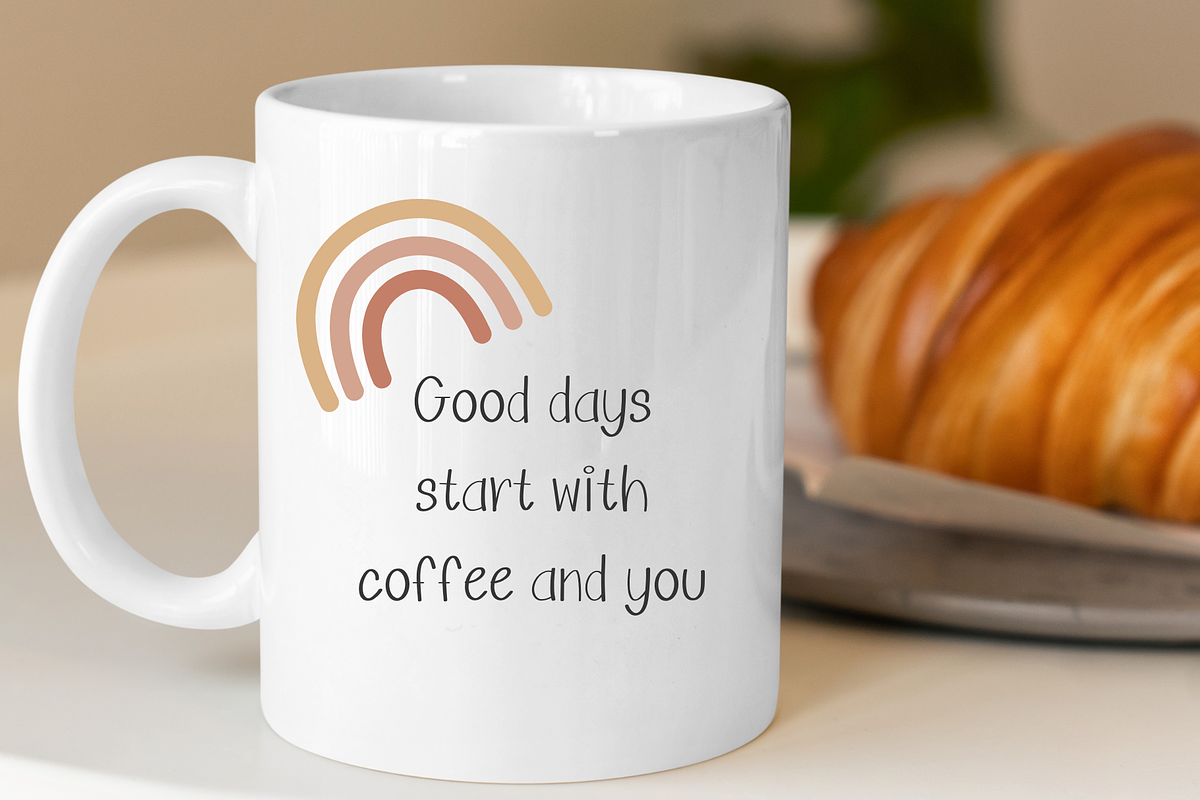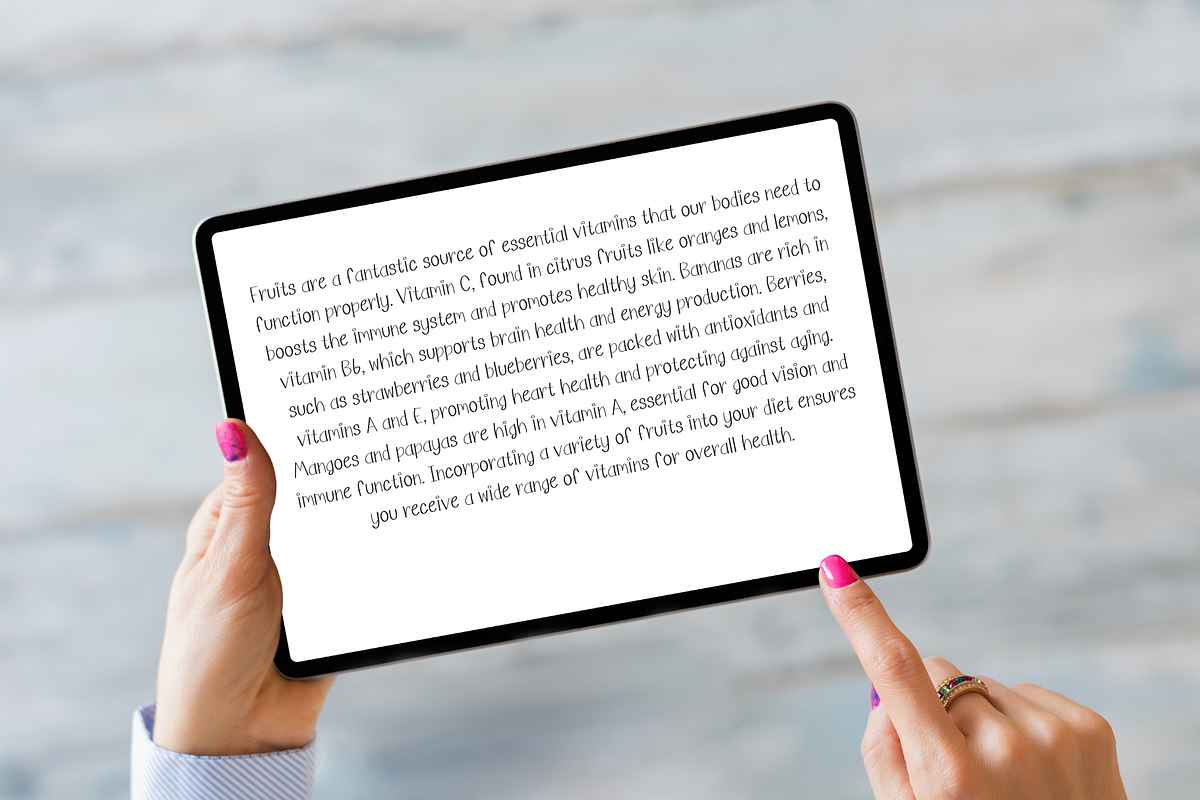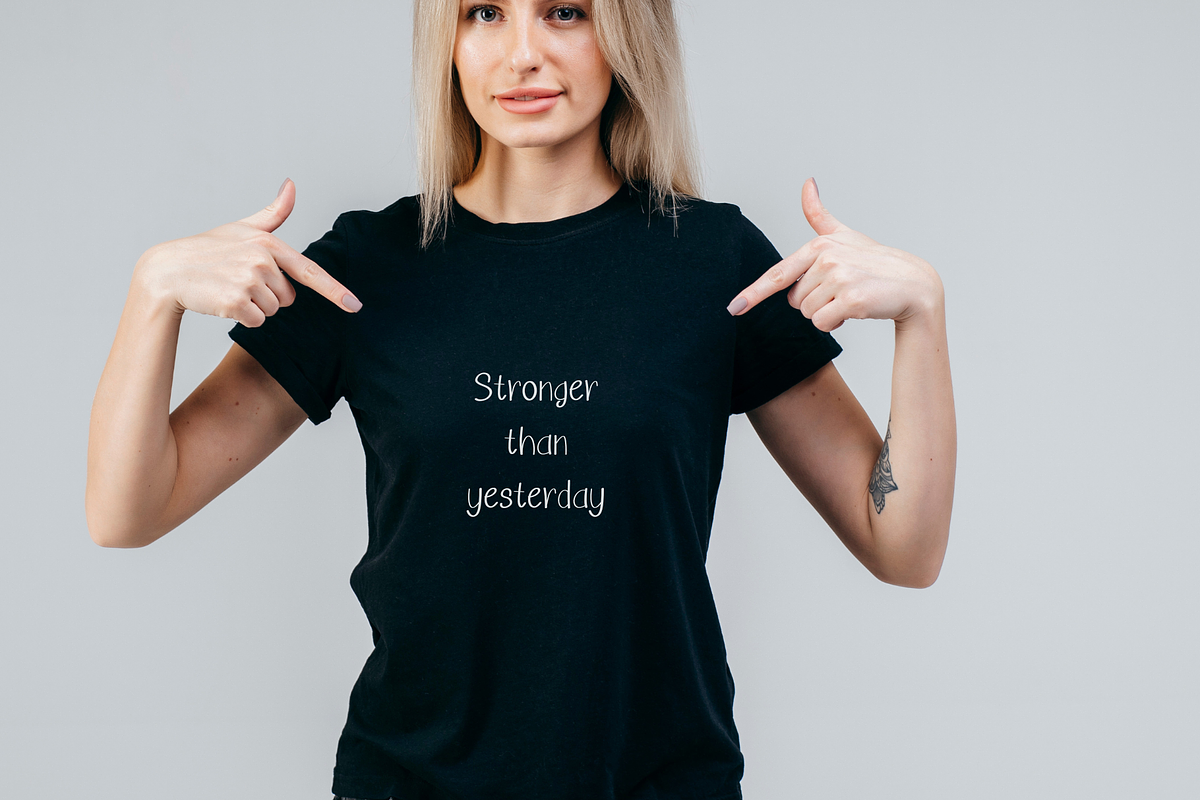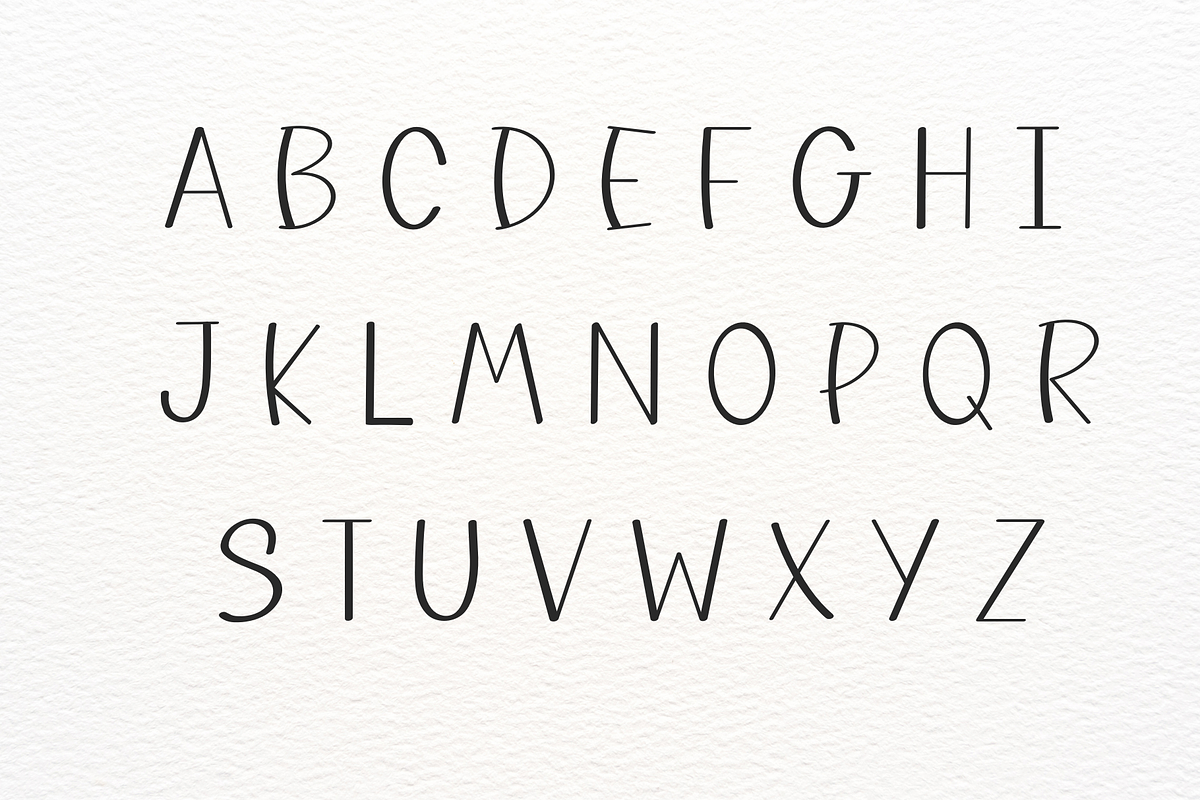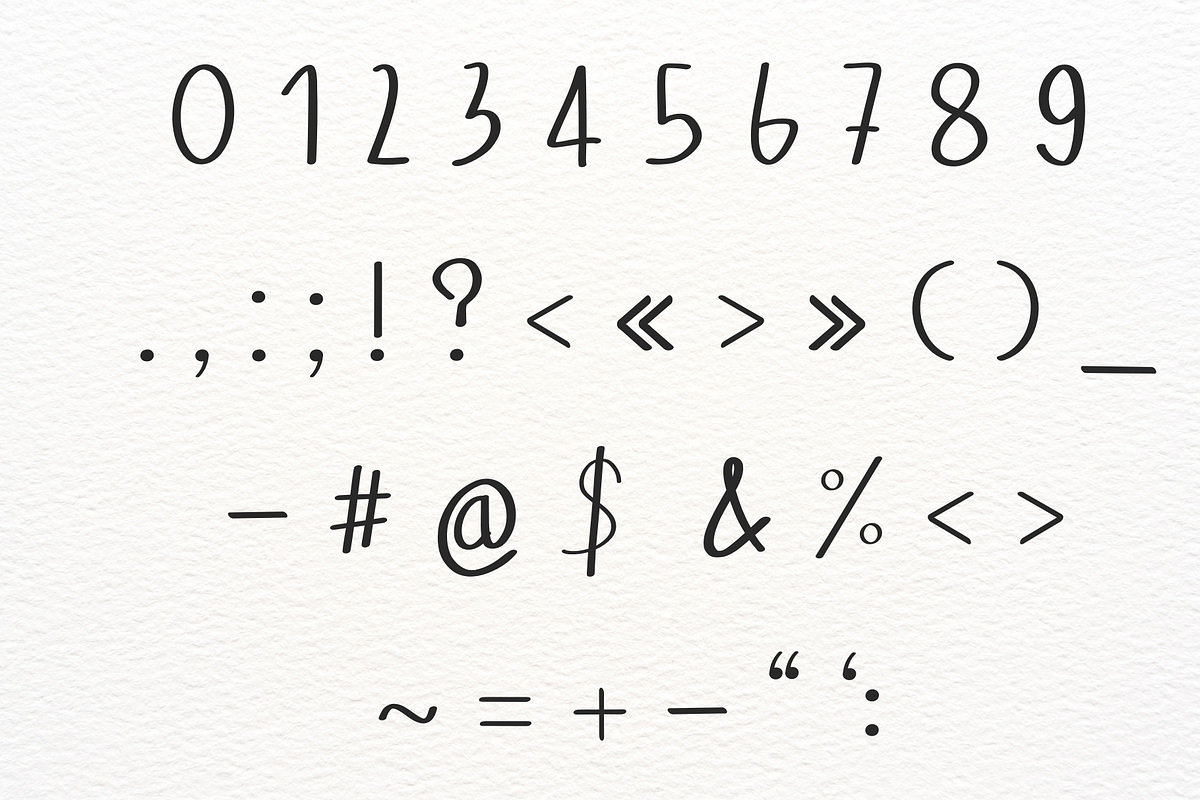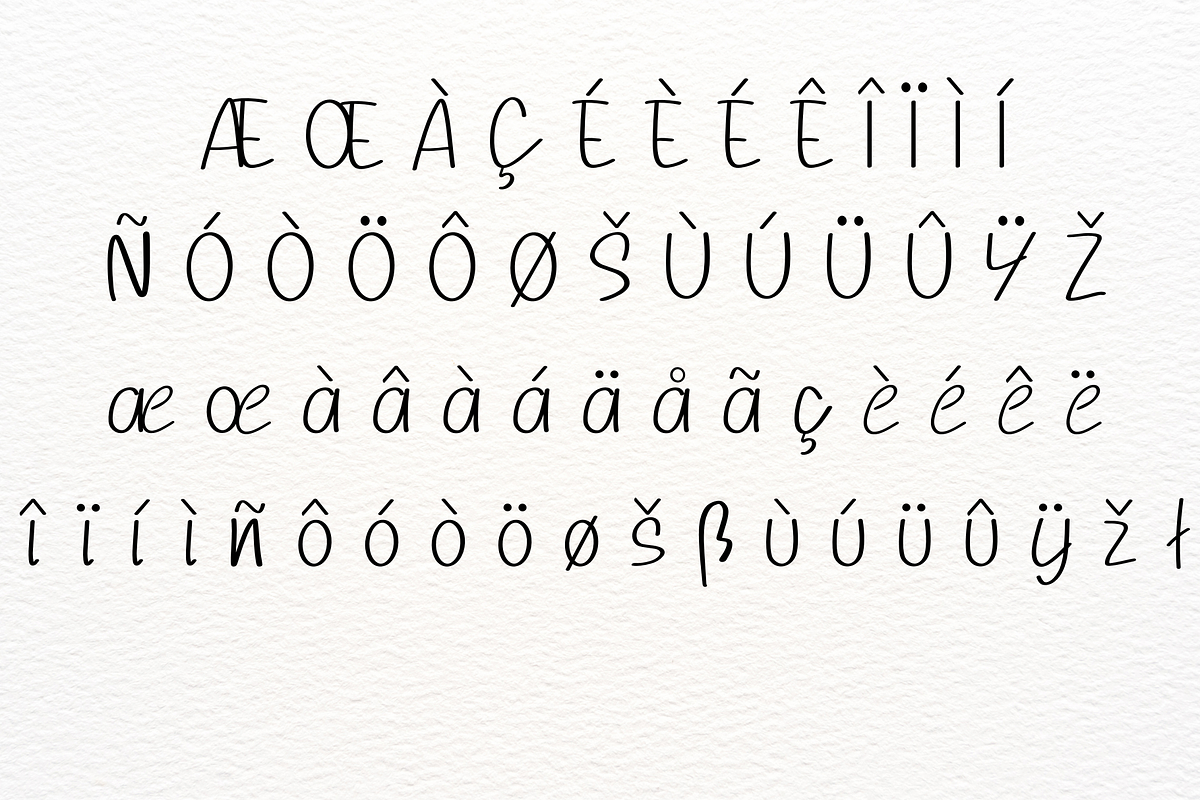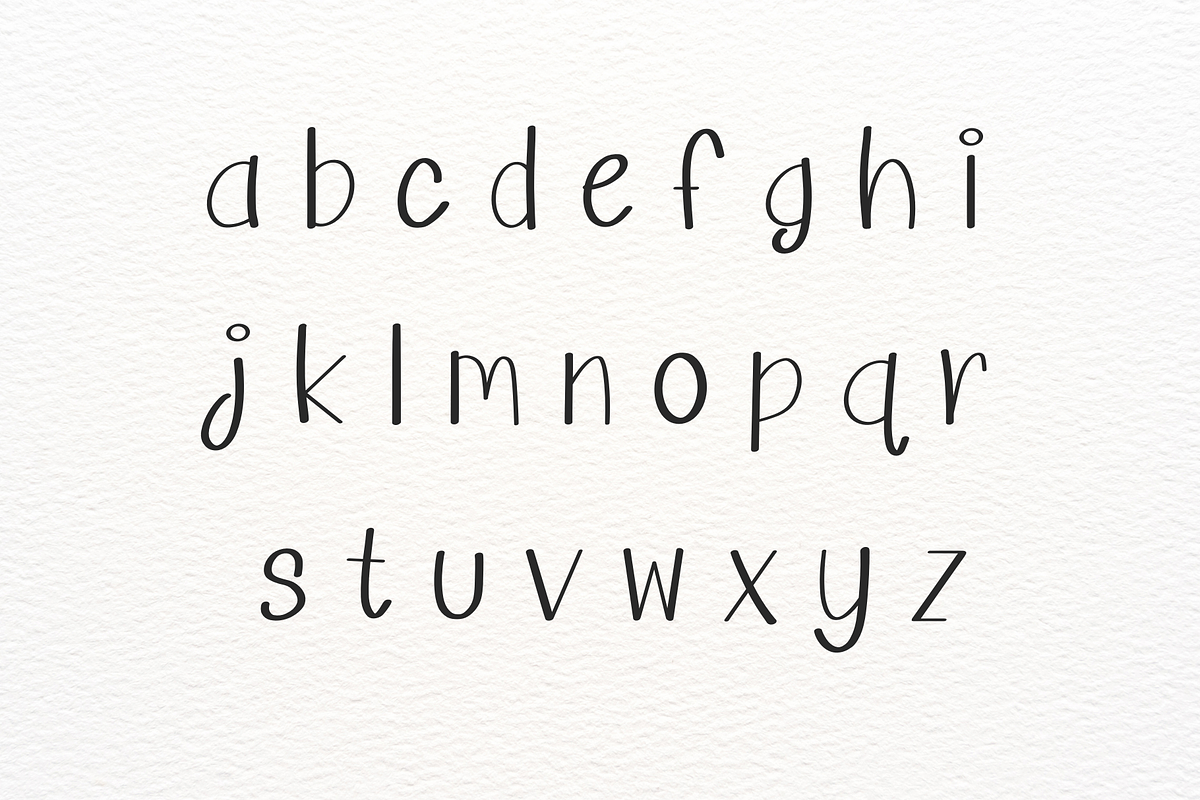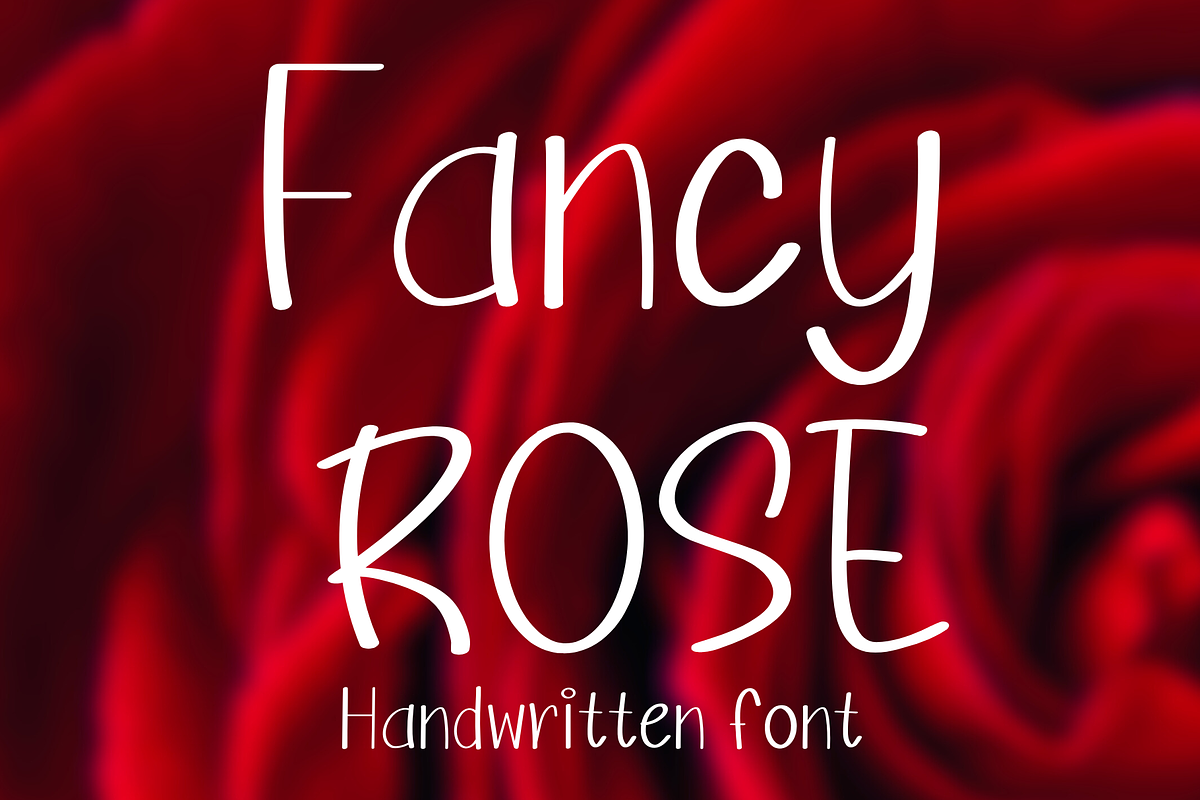
Fancy rose
Fancy Rose is a delicate and romantic handwritten font with a graceful flow and soft curves. Its refined yet playful style makes it ideal for a variety of projects, from wedding invitations and branding to greeting cards and social media posts. The subtle elegance of Fancy Rose adds a sophisticated and heartfelt touch to any design, making it perfect for creative projects that need a gentle, feminine vibe.